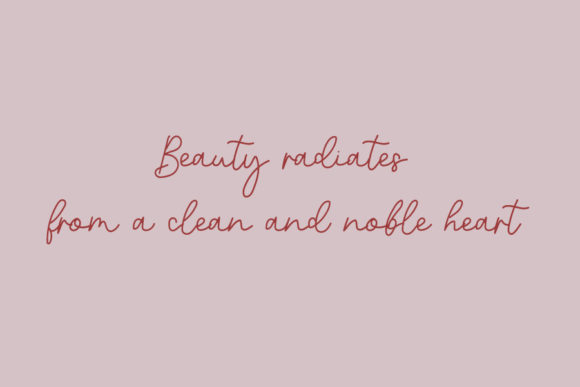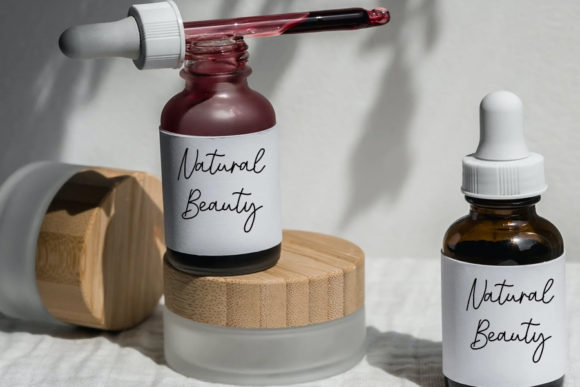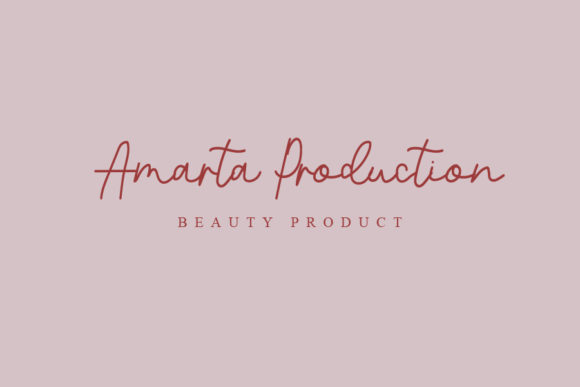
Jannah is a chic and delicate script font that emanates sophistication and elegance.
Its stylish alternates and ligatures make this font the perfect match for any project .
Jannah Font offers exceptional quality and versatility, making it a valuable addition to your design toolkit. Whether you’re creating for personal projects or commercial use, Jannah Font delivers professional results.